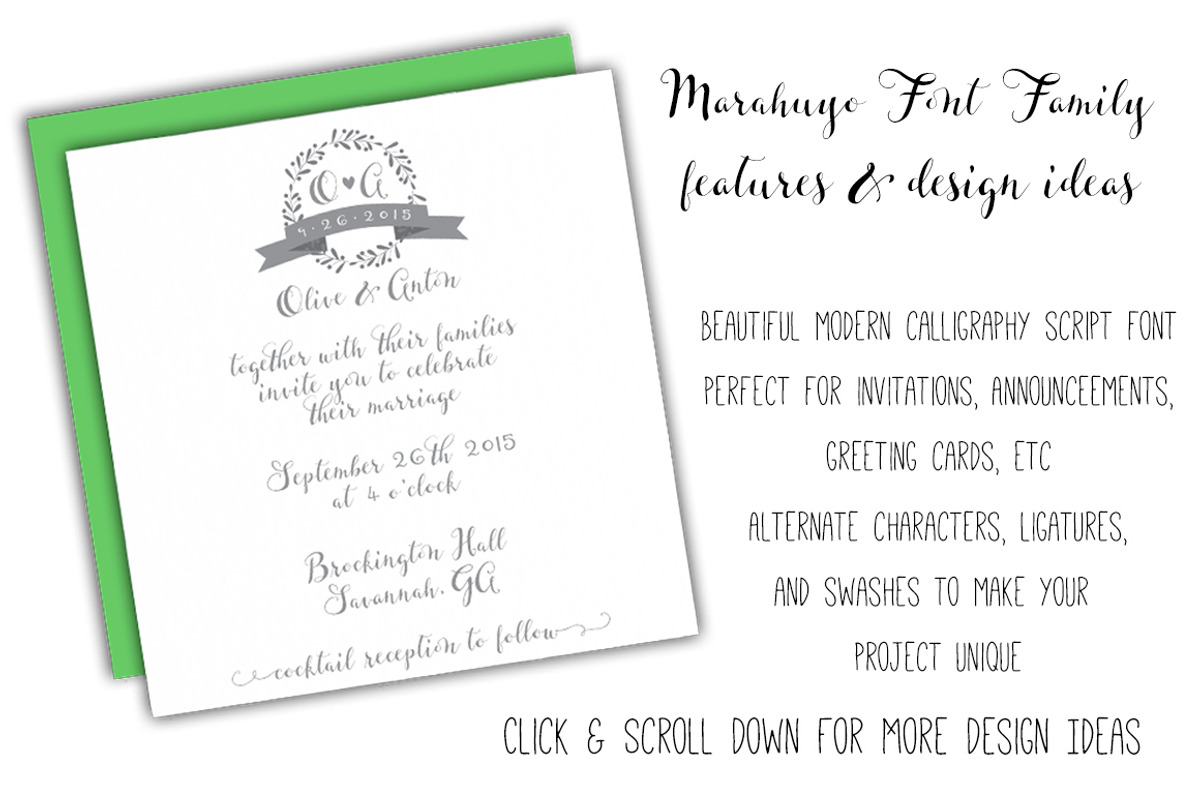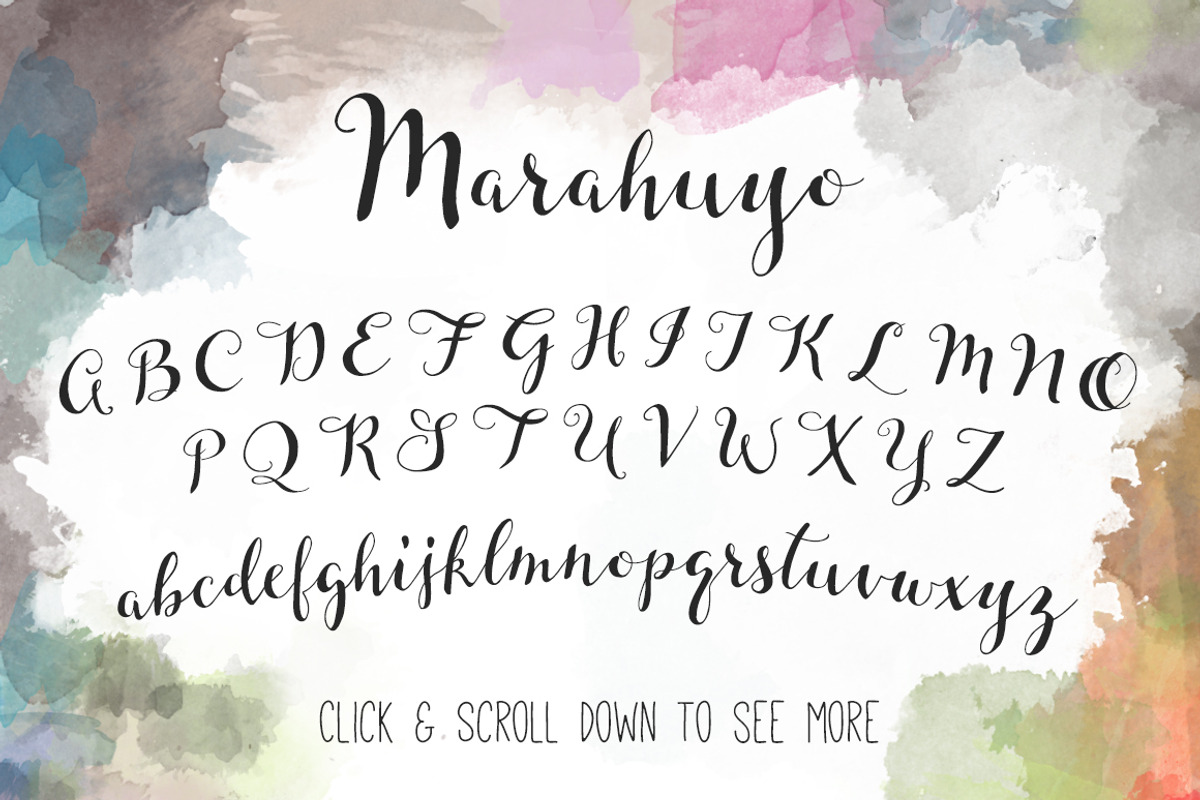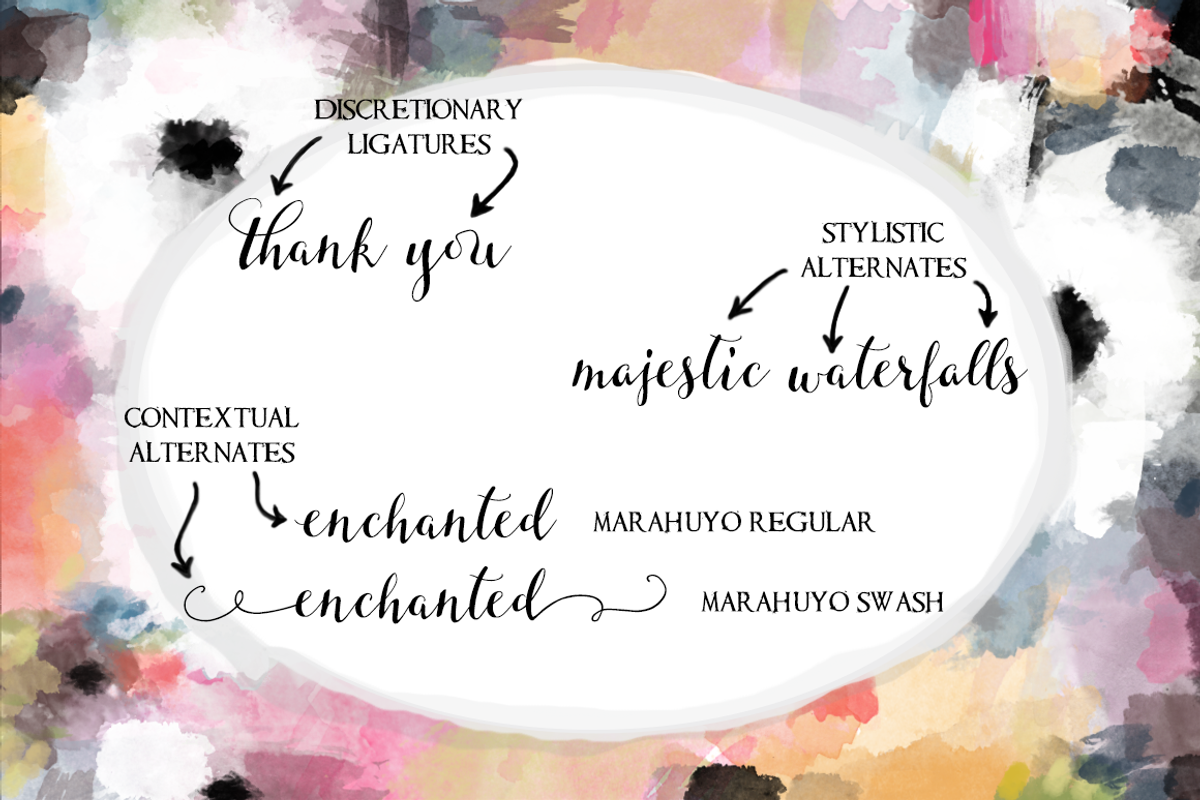
Marahuyo Font Family Set
Marahuyo Font Family Set by Seven Seas Design Co. is a font selected for branding, posters, packaging, typography.
- Marahuyo Font Family Set includes two separate font files combined as a family, Marahuyo Regular, and Marahuyo Swash.
- Marahuyo Regular additionally includes initial forms (special beginning lowercase letters), and a few special ligatures.
- Marahuyo Swash includes initial and terminal forms (beginning and end swashes).
- Marahuyo Font Family Set includes two separate font files combined as a family, Marahuyo Regular, and Marahuyo Swash.
- Marahuyo Regular additionally includes initial forms (special beginning lowercase letters), and a few special ligatures.
- Marahuyo Swash includes initial and terminal forms (beginning and end swashes).
- Both include all of the main characters- uppercase & lowercase, numbers and symbols, discretionary ligatures, and a few stylistic alternates
- Marahuyo Regular additionally includes initial forms (special beginning lowercase letters), and a few special ligatures.
- Two of the special ligatures include the word "love" and "R.S.V.P.".
Marahuyo Font Family Set by Seven Seas Design Co. fits naturally into Branding, posters, packaging, typography.